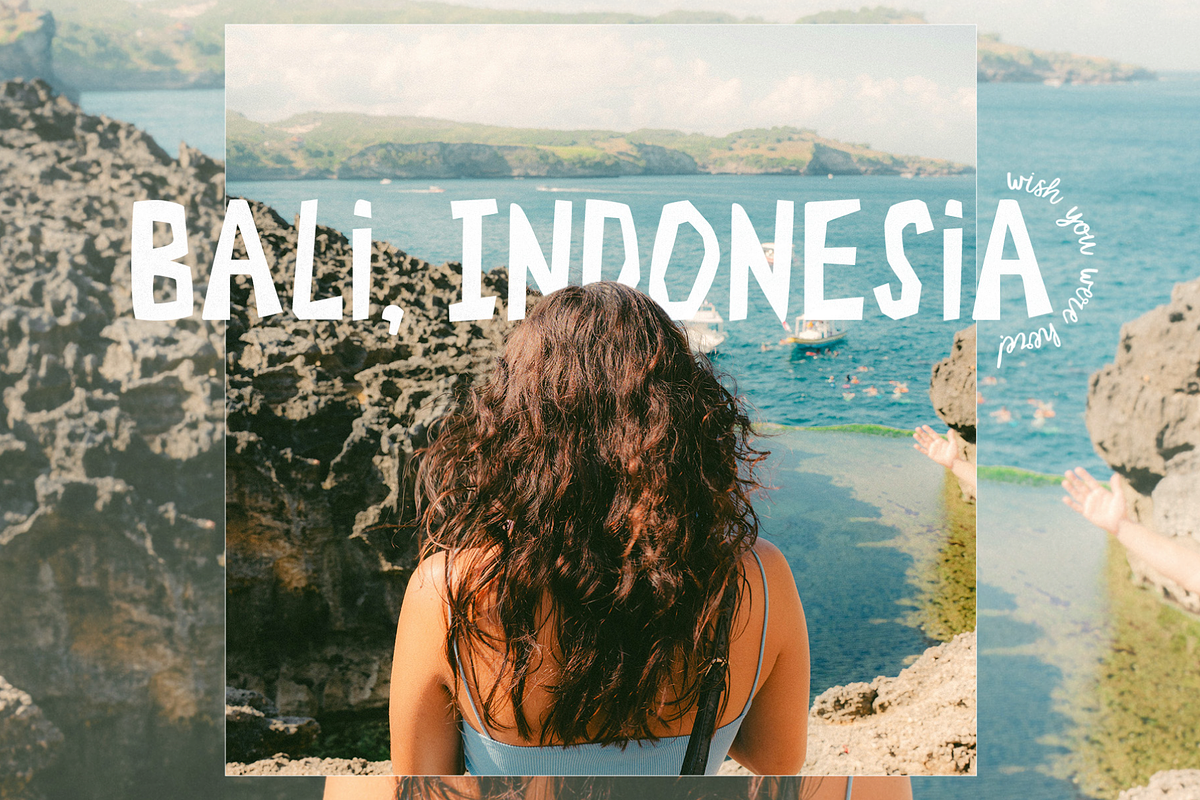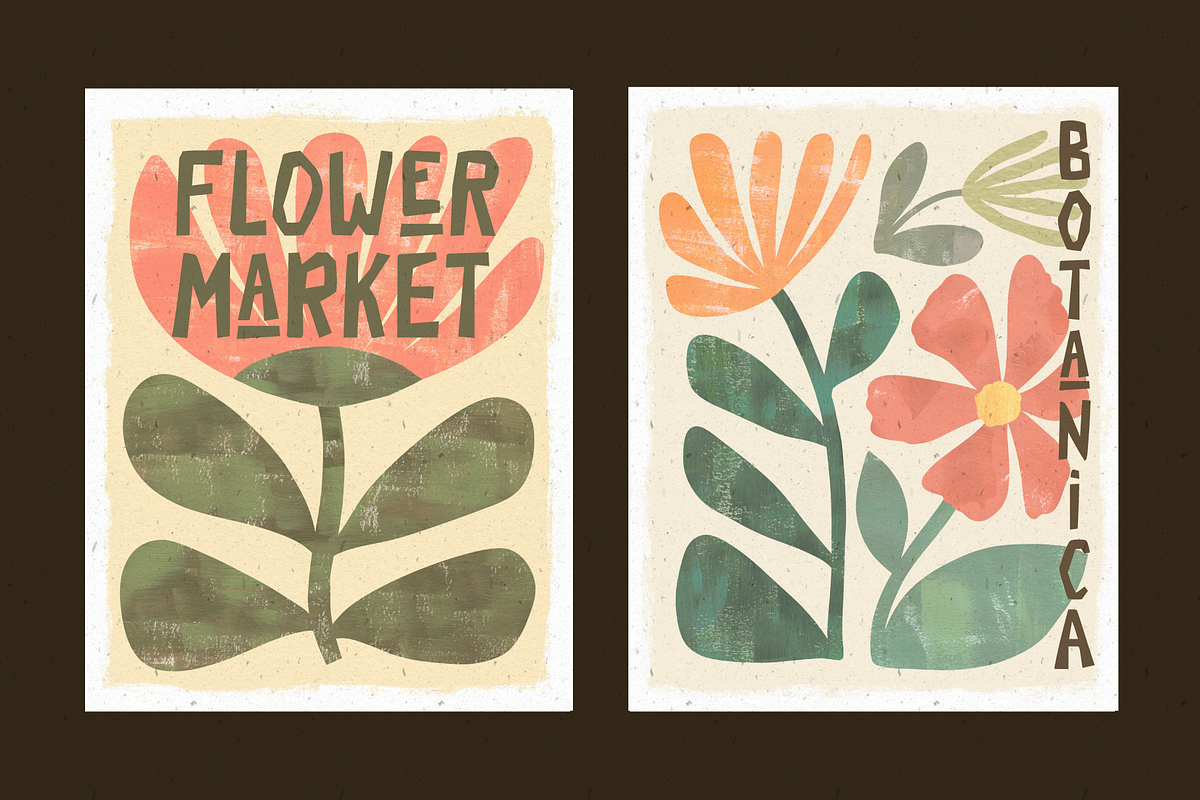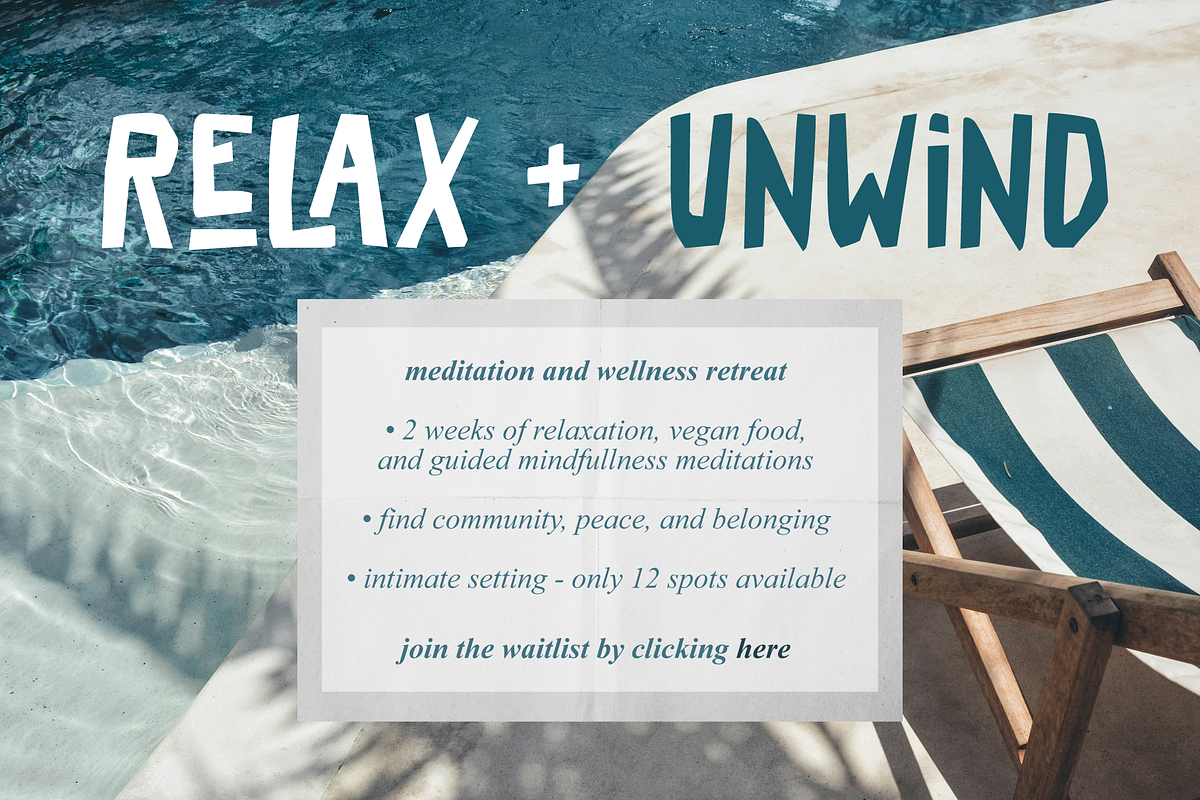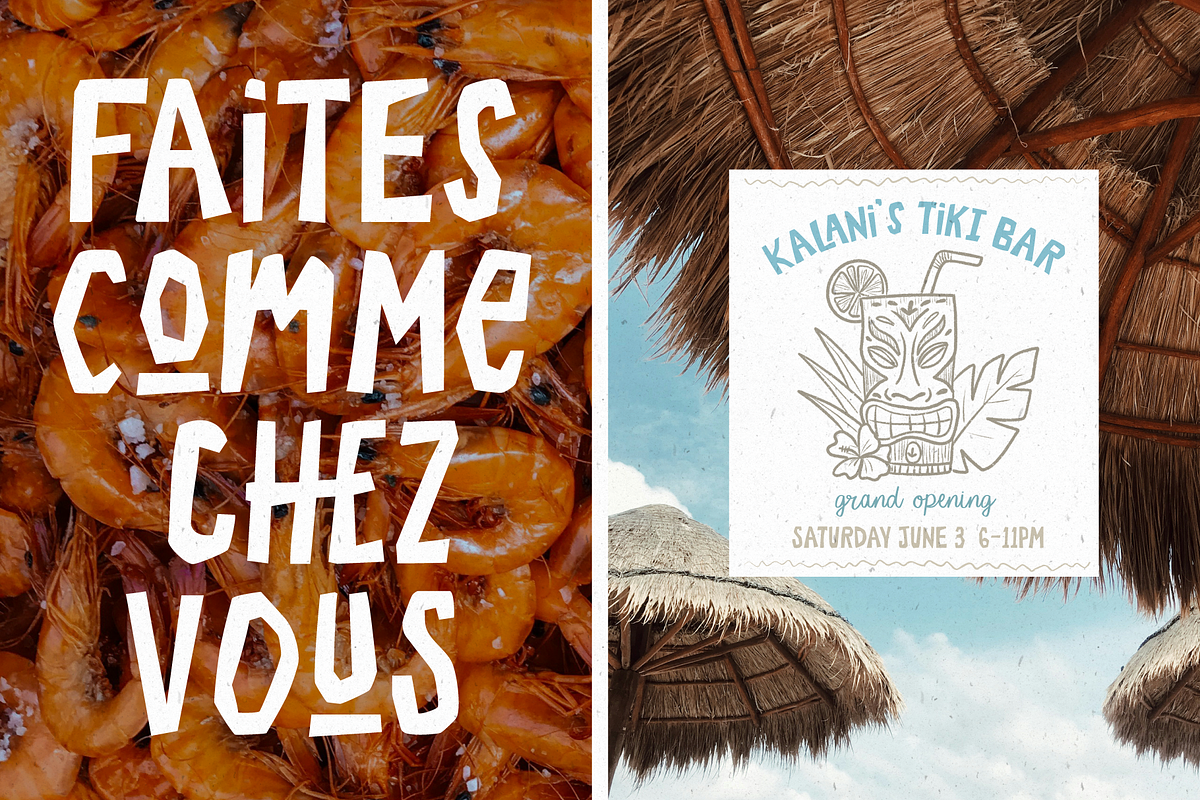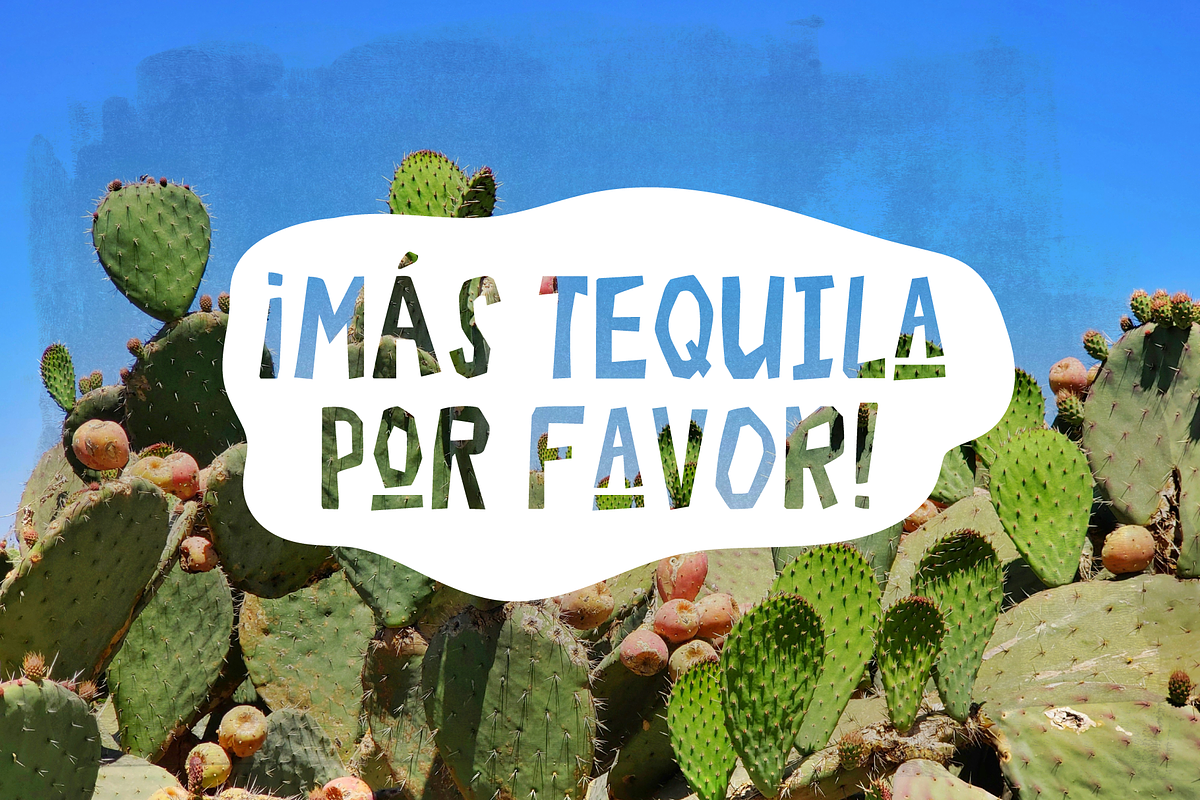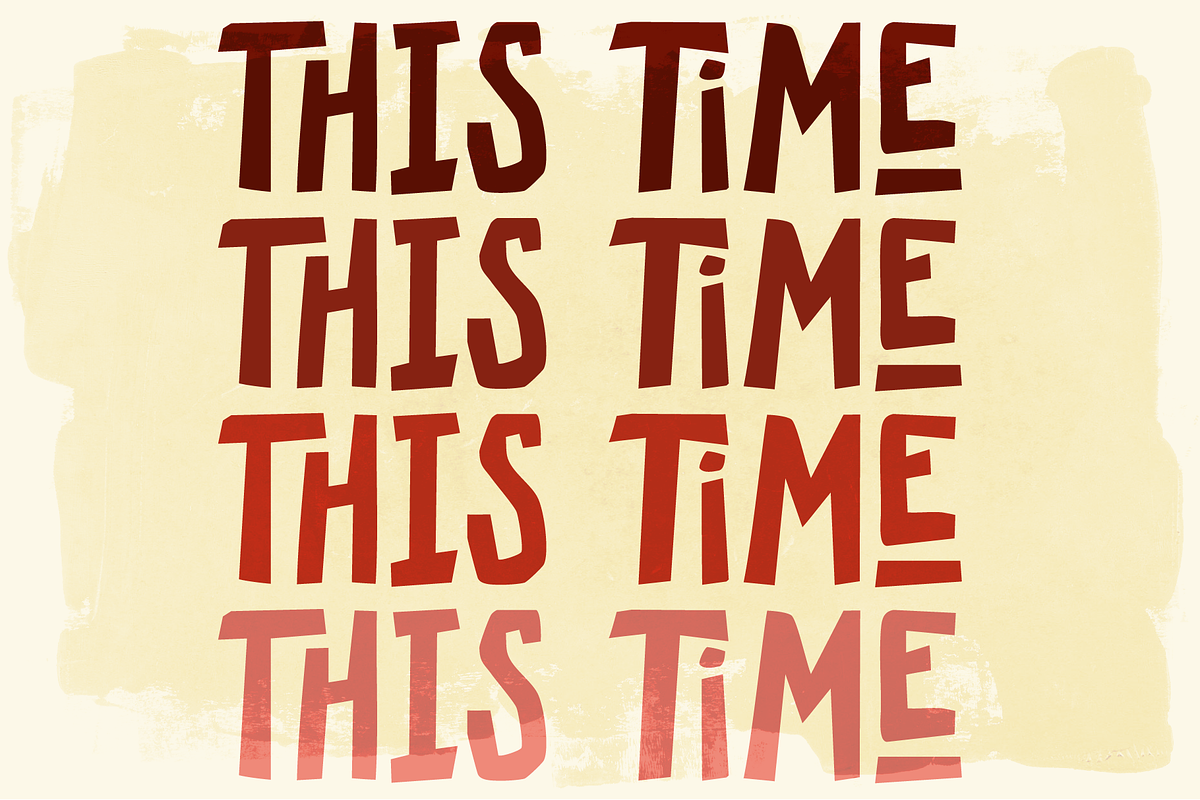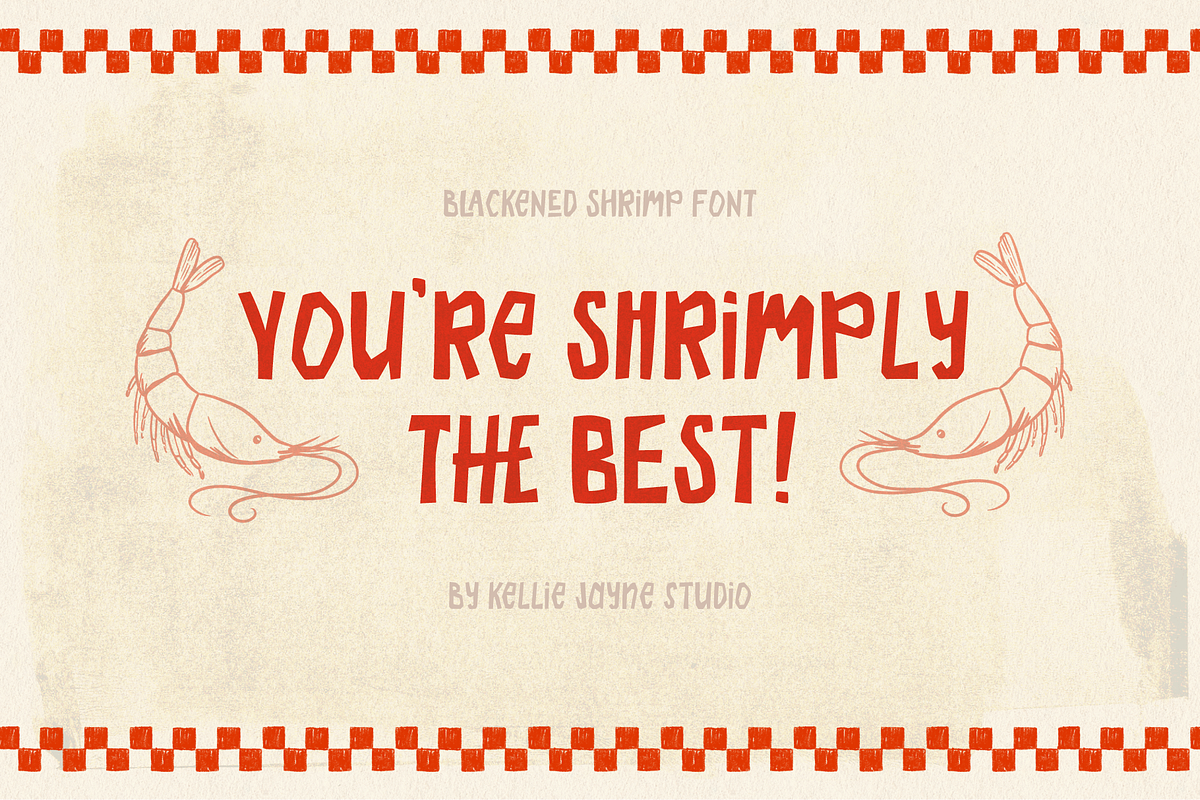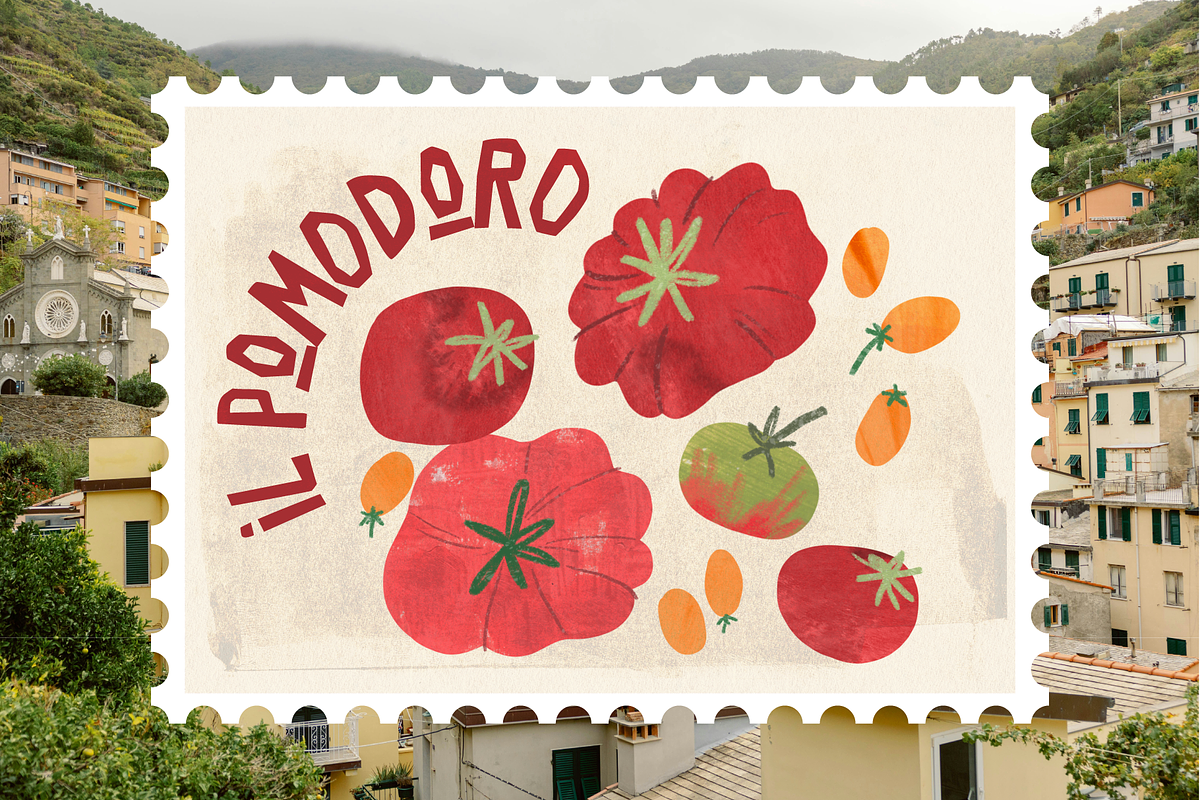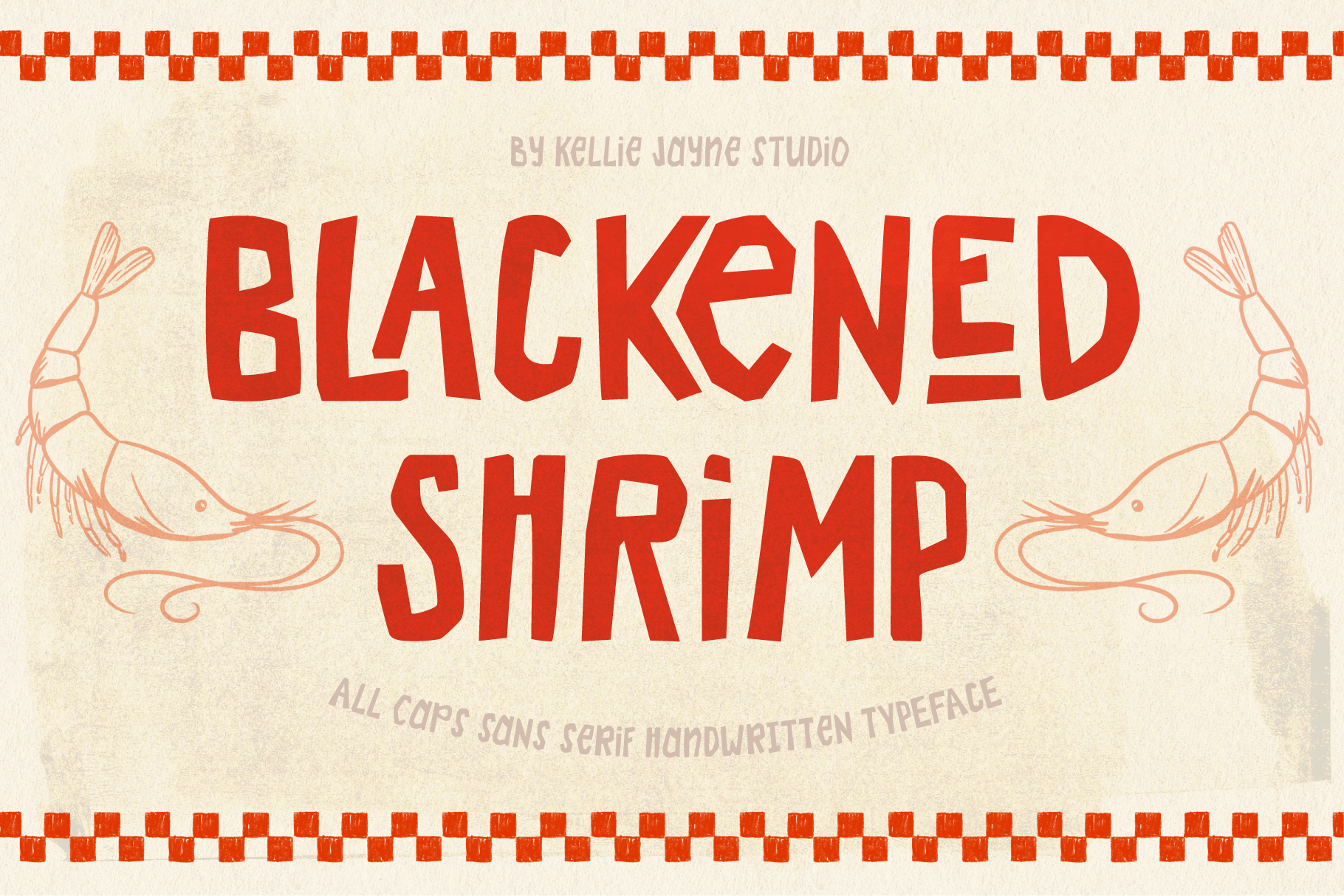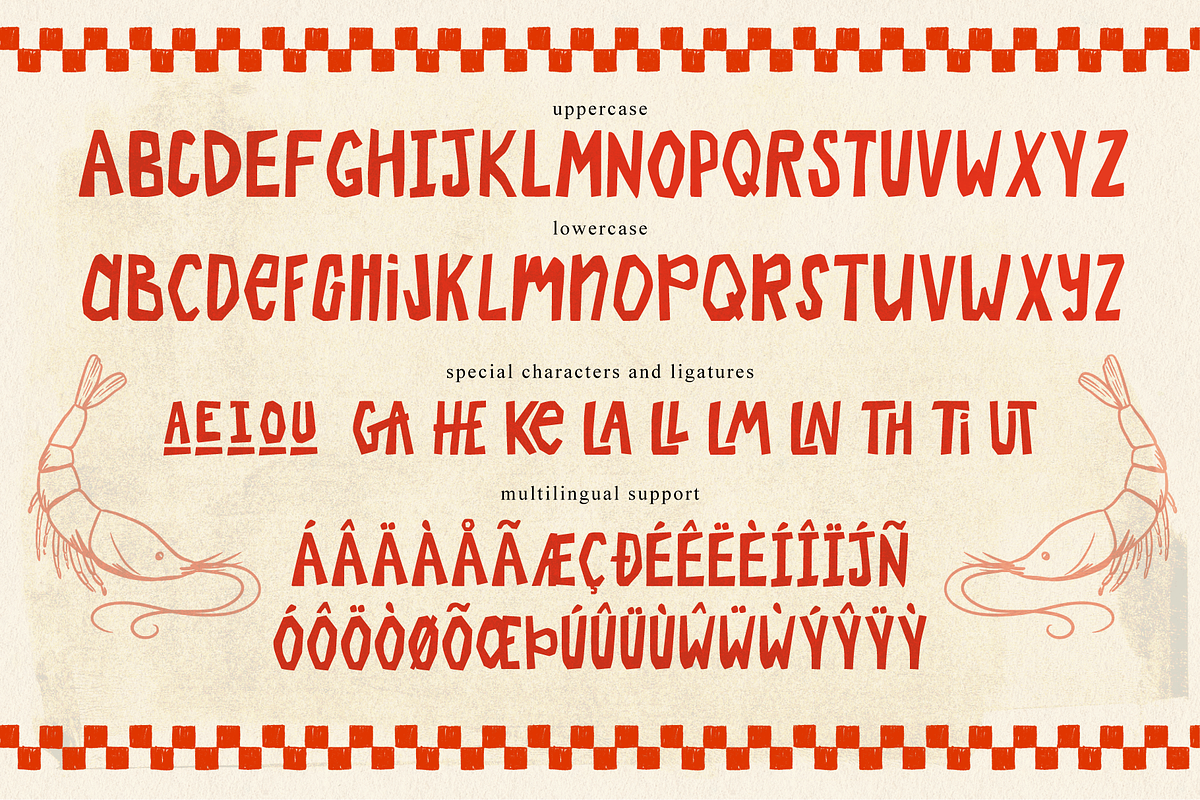
Blackened Shrimp Font
Blackened Shrimp is a funky handwritten sans font. It is all caps, with a second set of A-Z to give you that choice and variation of style. Some special characters and ligatures also help you achieve that bold, fun vibe.
I had fun creating Blackened Shrimp and I hope you have fun using it! Perfectly funky for posters, branding, packaging and more!
Special characters and ligatures accessible through Open Type features.